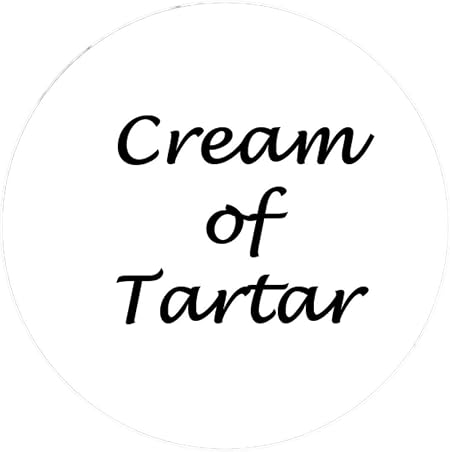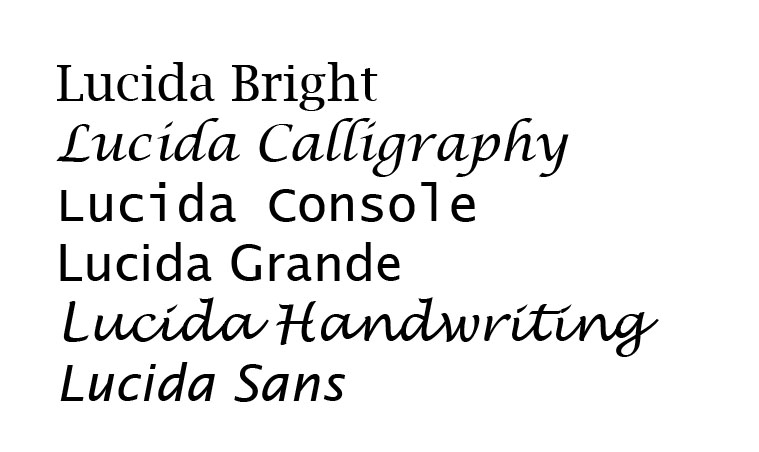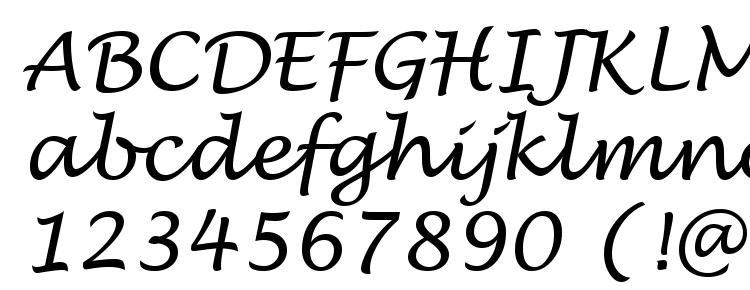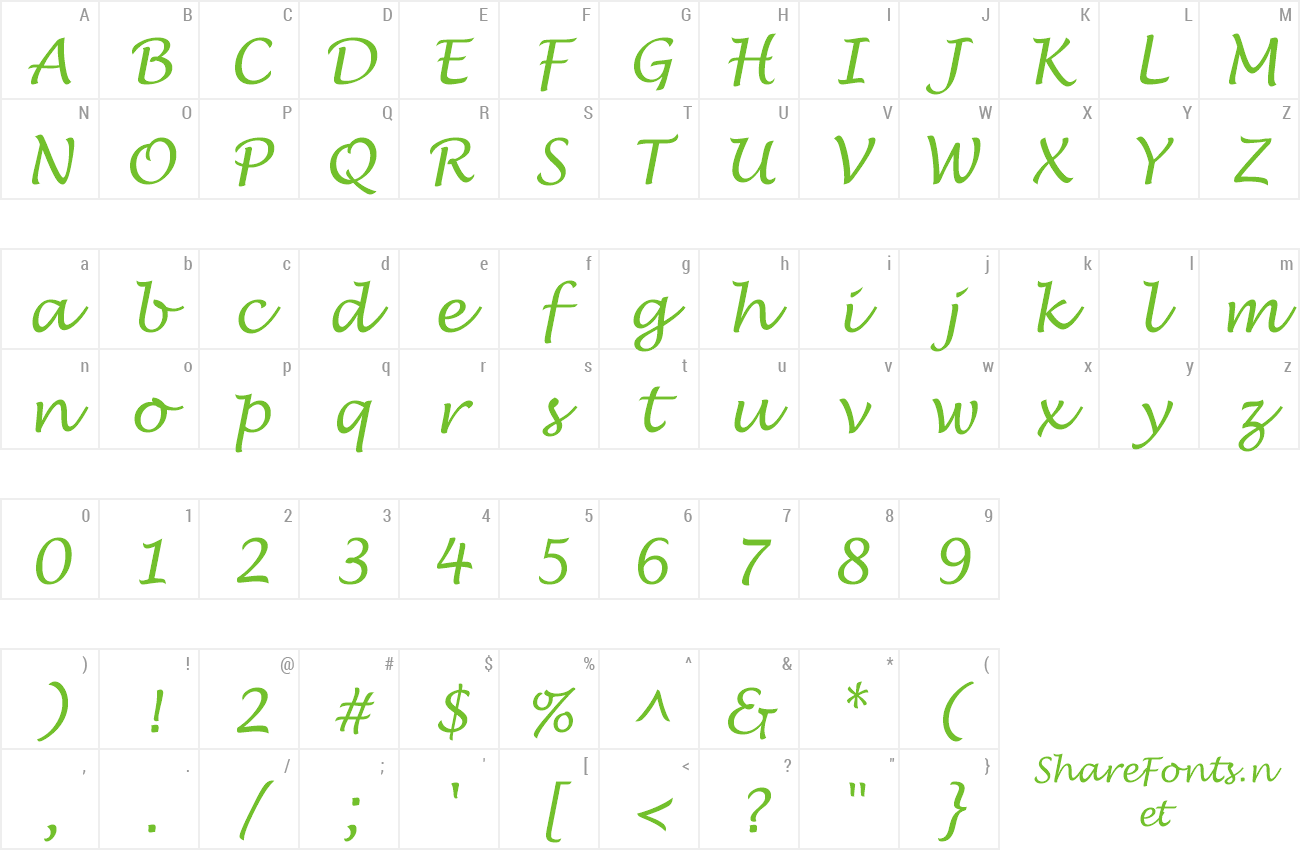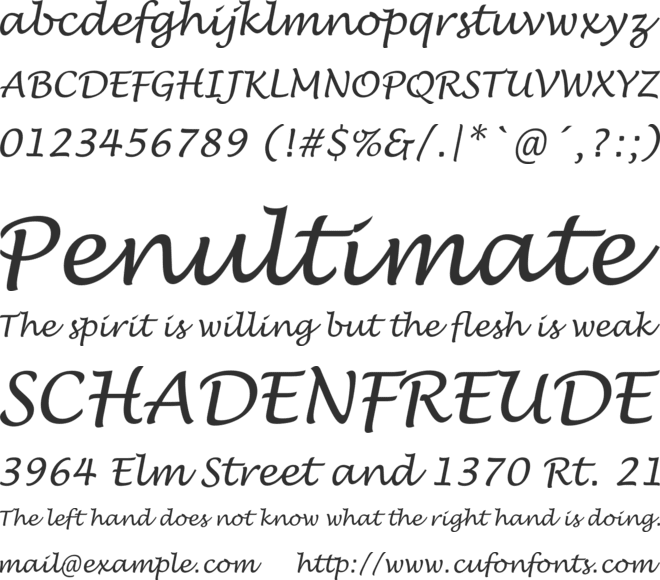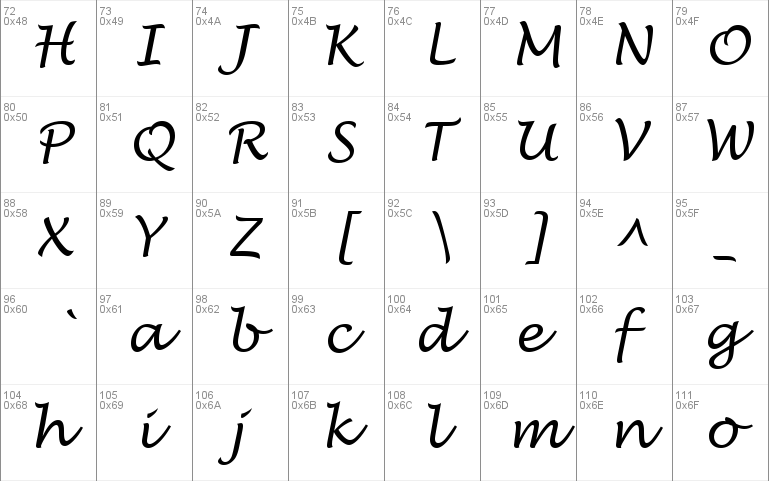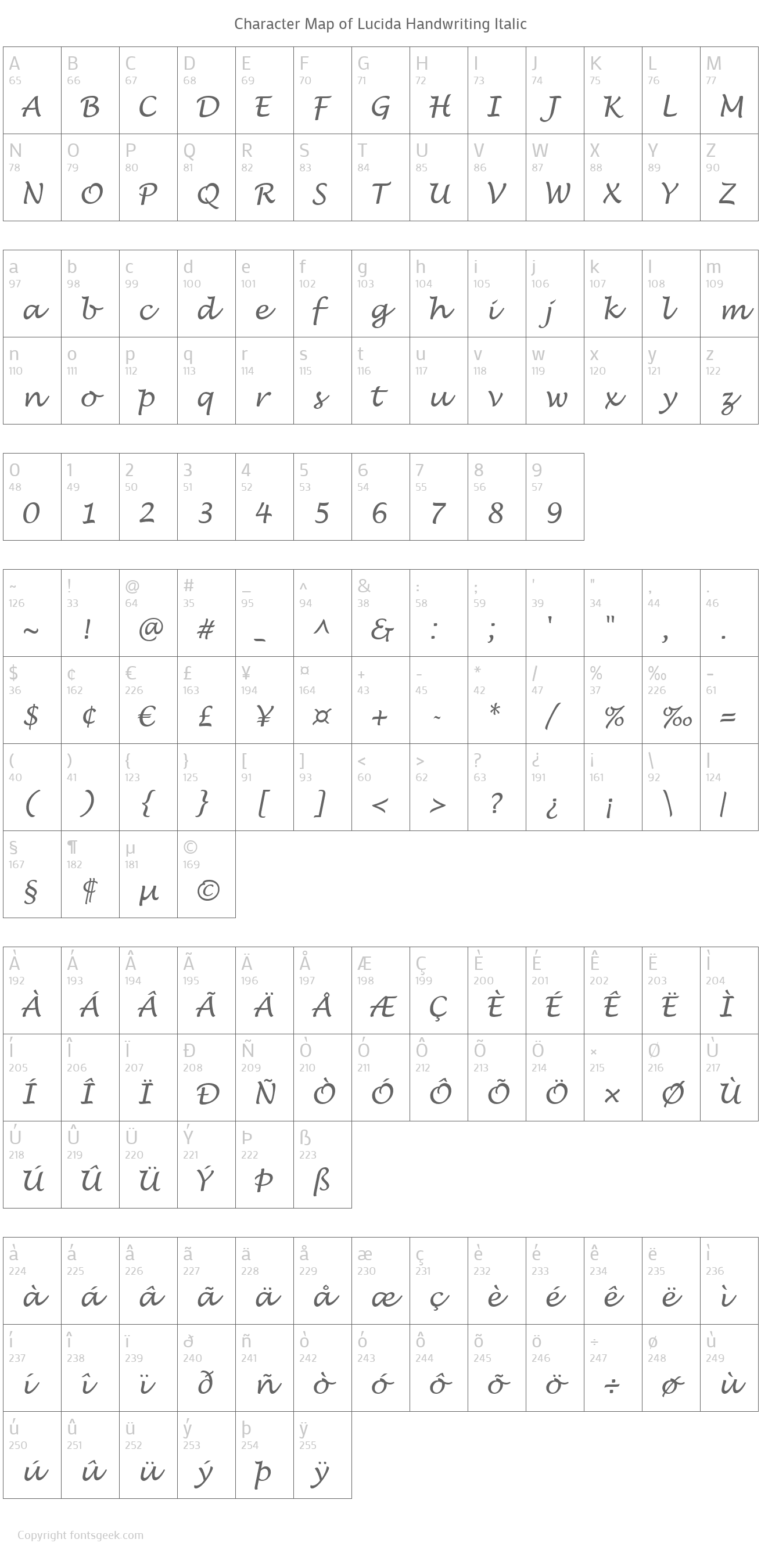
Lucida Handwriting Font
Download Popular Fonts The 10 most popular fonts right now Lucida Handwriting Italic Comments. Lucida Font Family The Lucida font family is another familiar and widely accessible handwriting style font The typeface comes in two variants, the Lucida Calligraphy and Lucida Handwriting The former shows a formal approach with it’s calligraphy cursive style that is often used for certificates, and formal invites. The best website for free highquality Tr Lucida Handwriting Italic fonts, with 26 free Tr Lucida Handwriting Italic fonts for immediate download, and 59 professional Tr Lucida Handwriting Italic fonts for the best price on the Web.
Lucida Font Family The Lucida font family is another familiar and widely accessible handwriting style font The typeface comes in two variants, the Lucida Calligraphy and Lucida Handwriting The former shows a formal approach with it’s calligraphy cursive style that is often used for certificates, and formal invites. Lucida Handwriting is a typeface designed by Kris Holmes and Charles Bigelow, and is available for Desktop, Web, DigitalAds, App, ePub, and Server Try, buy and download these fonts now!. Download Popular Fonts The 10 most popular fonts right now Lucida Handwriting Italic Comments.
Lucida® Handwriting EF Preview Here is a preview of how Lucida® Handwriting EF will look For more previews using your own text as an example, click here. Lucida® Handwriting EF Font families The Lucida® Handwriting EF font includes the following font families Lucida Handwriting EF;. DESIGN PROCESS In , Bigelow & Holmes created Lucida Handwriting, an informal joining scriptThe font became widely used after its release by Microsoft in 1992 Some two years later, we designed two informal, nonjoining fonts that looked like they’d been written rapidly with a partly wornout fibertipped marker.